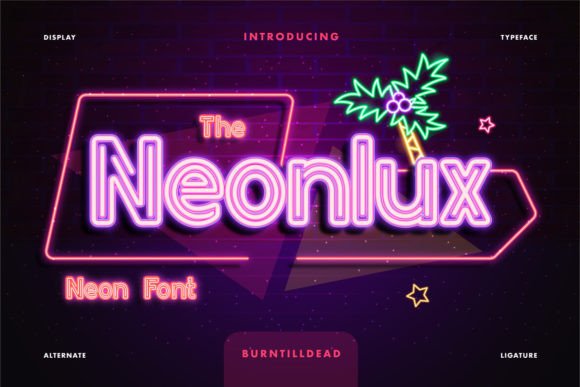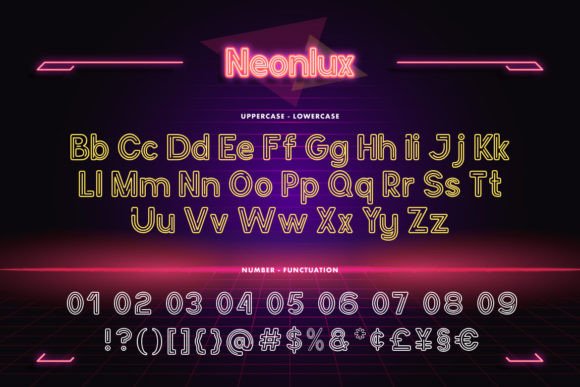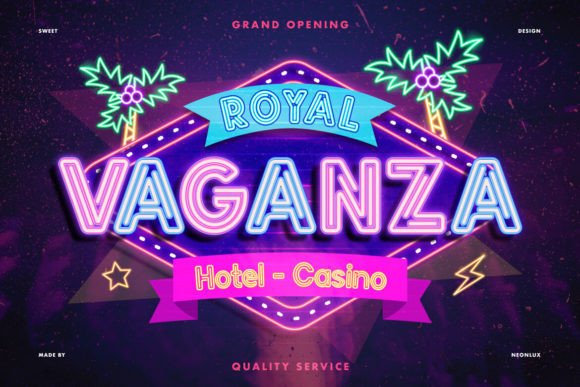
Introduction to Neonlux Font
Have you ever been scrolling through social media and stumbled upon a design that stops you in your tracks? A bold, eye-catching font that screams creativity and style? That’s exactly what happens when you incorporate the Neonlux Font into your creative project. This striking display font is more than just a design element – it’s a statement piece that adds an extra layer of energy and vibrancy to your work.
As a designer, you’re constantly on the lookout for high-quality design resources that can elevate your brand and make your designs stand out. That’s where Neonlux Font comes in – a free download that’s perfect for trendy branding, dynamic social media graphics, and eye-catching posters. With its sleek, bold letterforms and transparent background, this electrifying typeface is sure to illuminate your designs and leave a lasting impression.
Key Features of Neonlux Font
- High-quality vector font with a unique neon-lit aesthetic, ideal for creative projects requiring a futuristic design resource.
- Unique characteristics: Glowing neon lines, abstract shapes, and futuristic typography, making it perfect for creating eye-catching designs and visual effects.
- Perfect for use in graphic design, digital art, and creative projects requiring a high-quality, modern font with a neon-lit aesthetic.
Honest Review: Neonlux Font
As a designer, I’m always on the lookout for high-quality design resources that can elevate my creative projects. Recently, I stumbled upon the Neonlux Font, and I’m excited to share my honest review.
First impressions: the Neonlux Font is a stunning, eye-catching font that’s perfect for adding a touch of neon glamour to any design. ✨ I love how it’s designed to work seamlessly with transparent backgrounds, making it a great choice for creative projects that require a bit of extra oomph.
Here are some of the things that work well:
- High-quality design that’s sure to grab attention
- Perfect for use on transparent backgrounds
- Stylish, modern aesthetic that’s perfect for creative projects
While the Neonlux Font is a great addition to any designer’s toolkit, there are a few limitations to be aware of:
- Only available in a limited number of font weights
- Not ideal for use in large blocks of text
Overall, I’m really impressed with the Neonlux Font. It’s a fantastic resource for designers looking to add a bit of neon flair to their creative projects. With its high-quality design and versatile style, it’s sure to become a go-to choice for many designers. ⚠️ Just be aware of its limitations, and you’ll be golden!
Tips for Getting the Most Out of Neonlux Font
Use the Neonlux Font in combination with transparent backgrounds to create a sleek and modern look. Experiment with different font sizes and styles to add visual interest to your design. Don’t be afraid to mix and match the font with other design elements to create a unique and eye-catching composition.
The Neonlux Font is perfect for creative projects such as logos, business cards, and social media graphics. Its high-quality design and unique style make it an ideal choice for designers looking to add a touch of sophistication to their work.